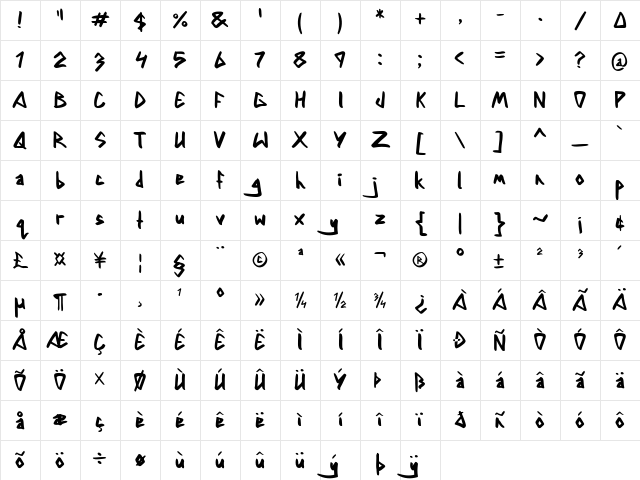
Design Context for Dylan Comic
Dylan Comic has an approachable, lighthearted character - its loose, expressive forms are well-suited to children's content, casual branding, and fun-first design.
Font Pairing: Pairs well with a rounded or humanist sans for body copy, maintaining the friendly tone without relying on Dylan Comic to carry extended reading.
Pro Tip: Use Dylan Comic at larger display sizes where its expressive character can land. Pair with a clean, simple sans for body copy to maintain readability.